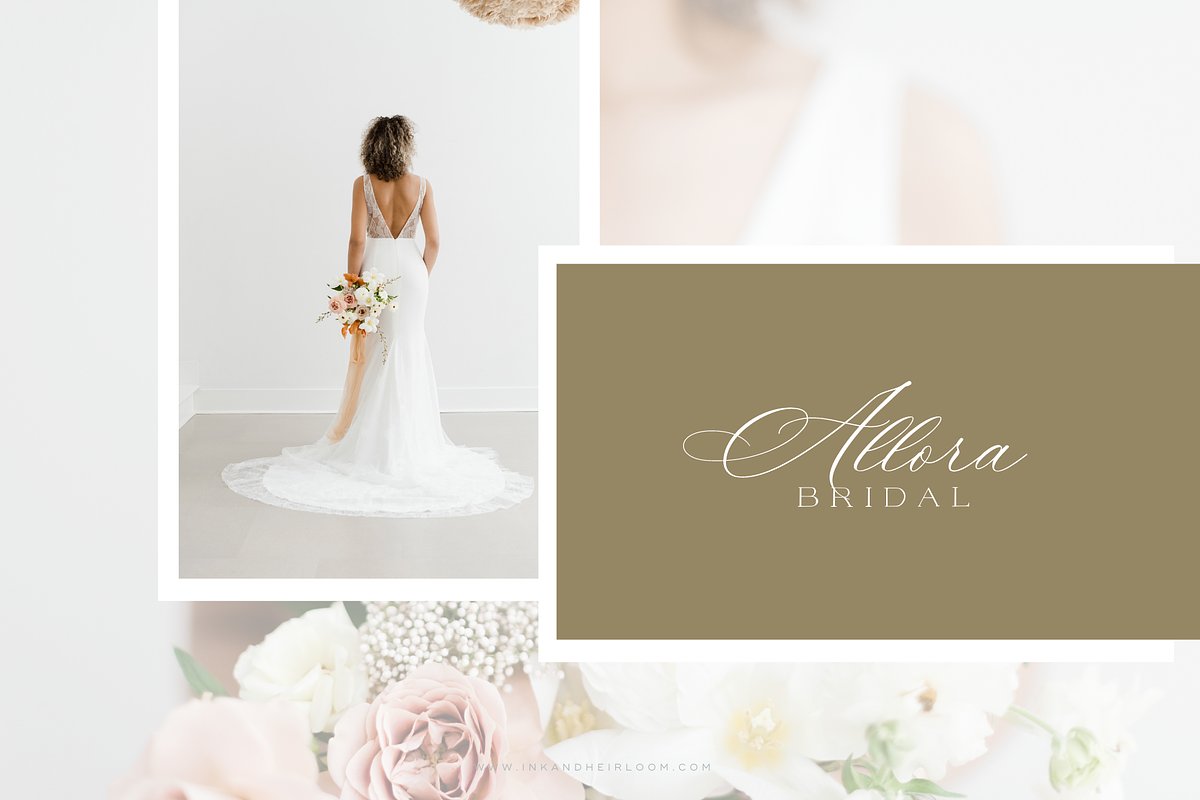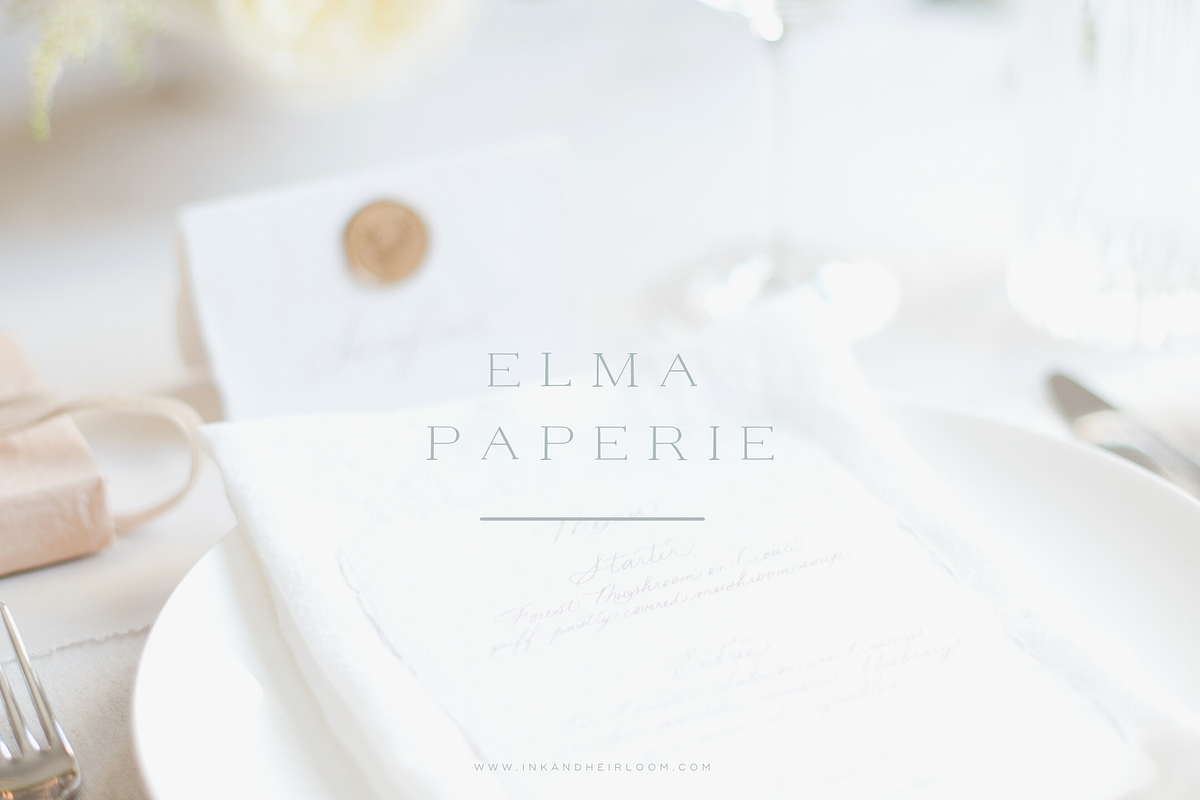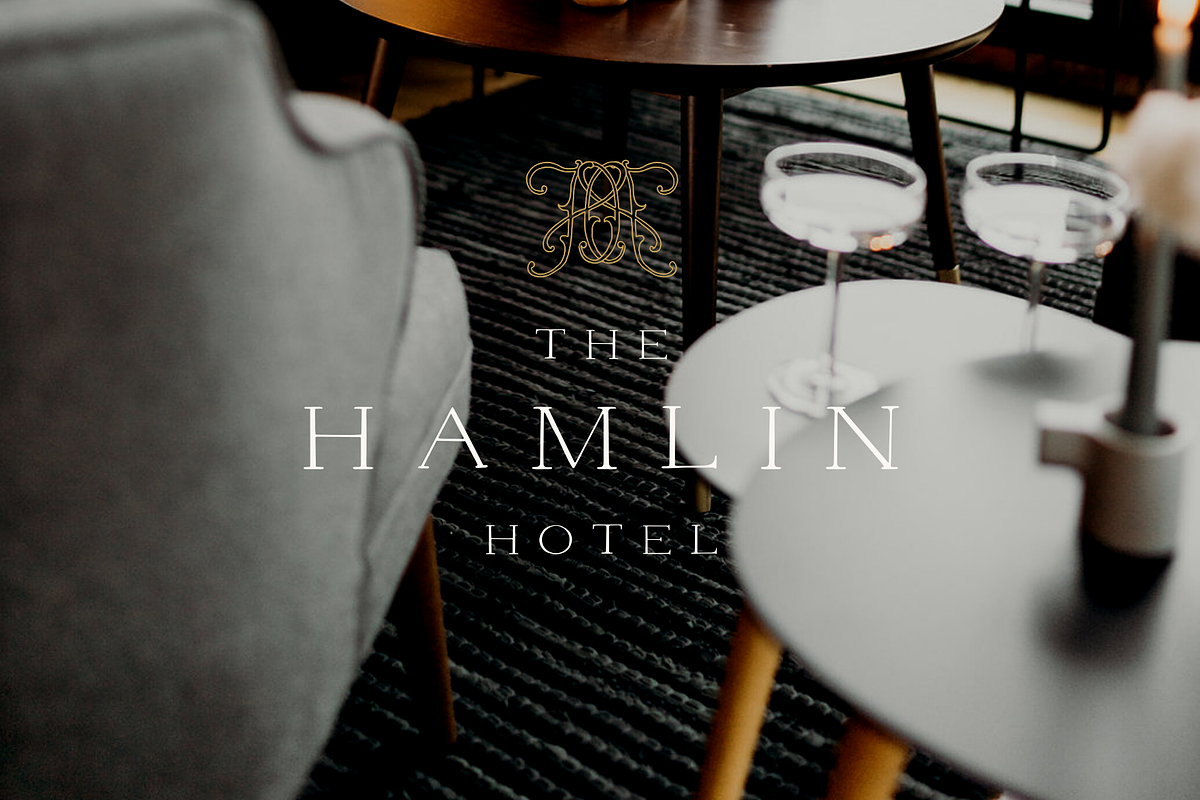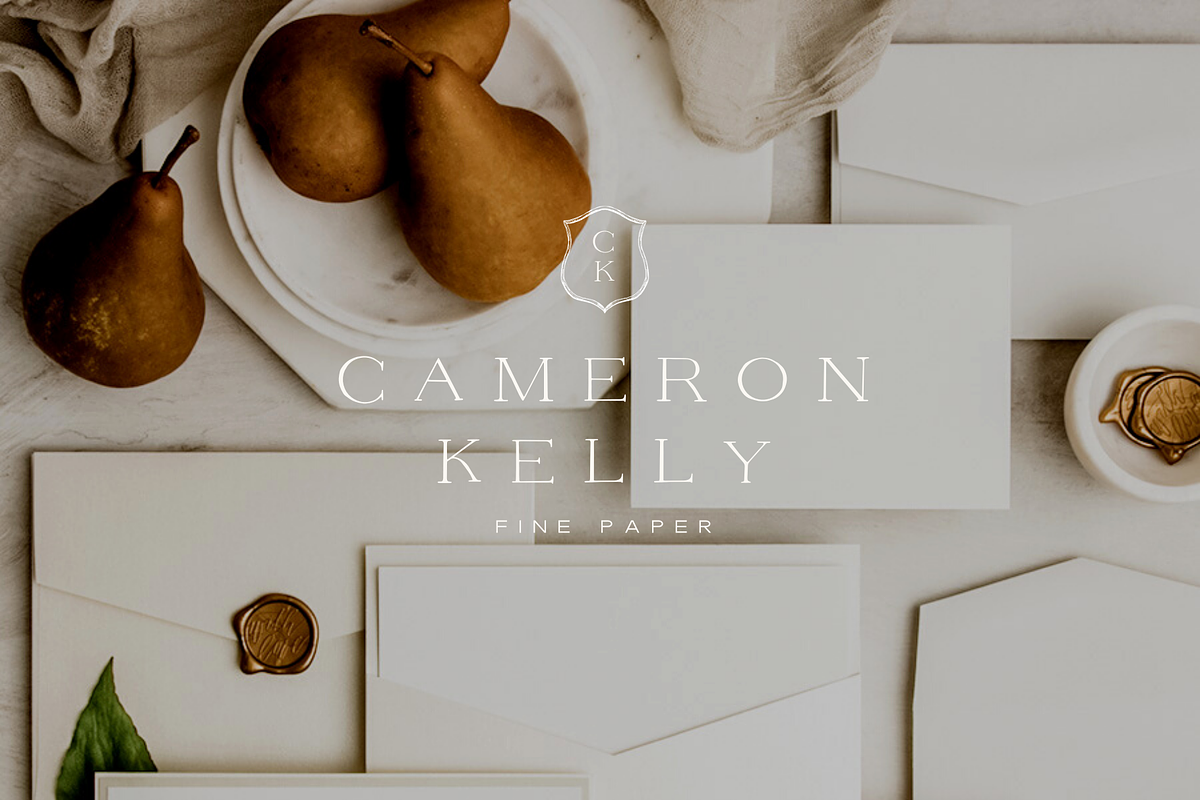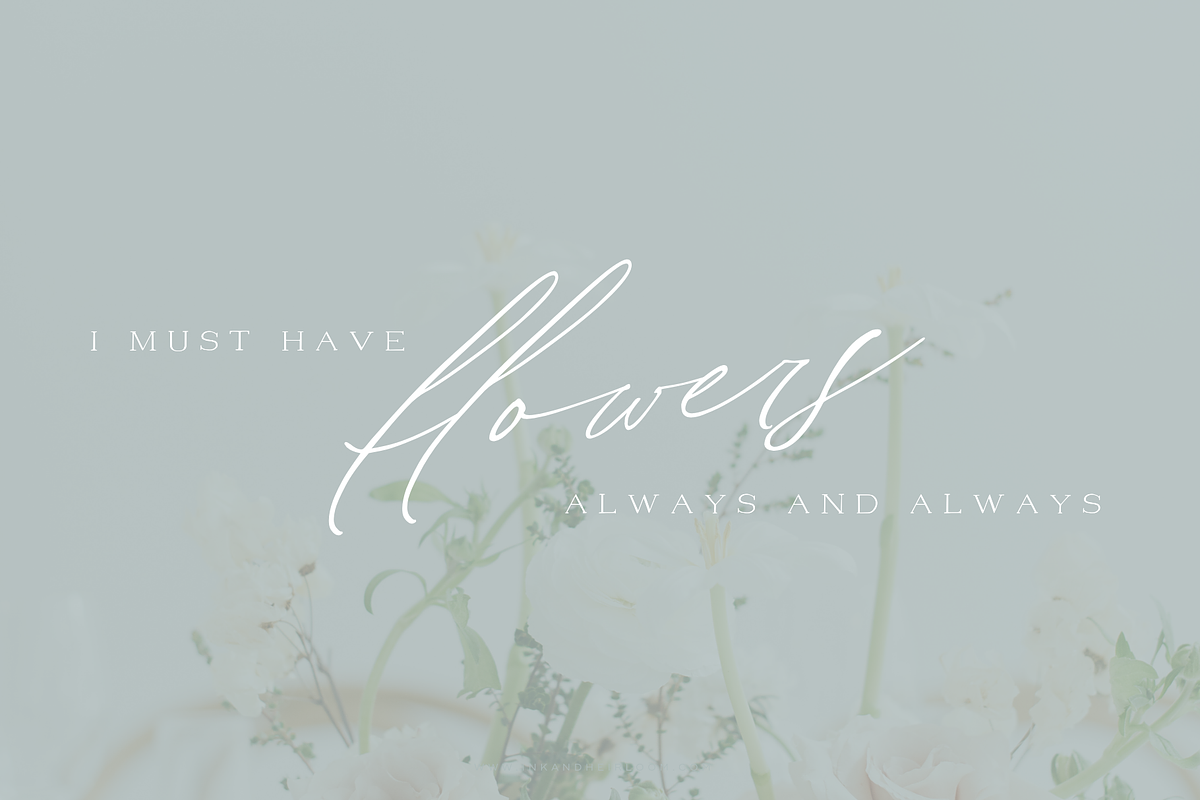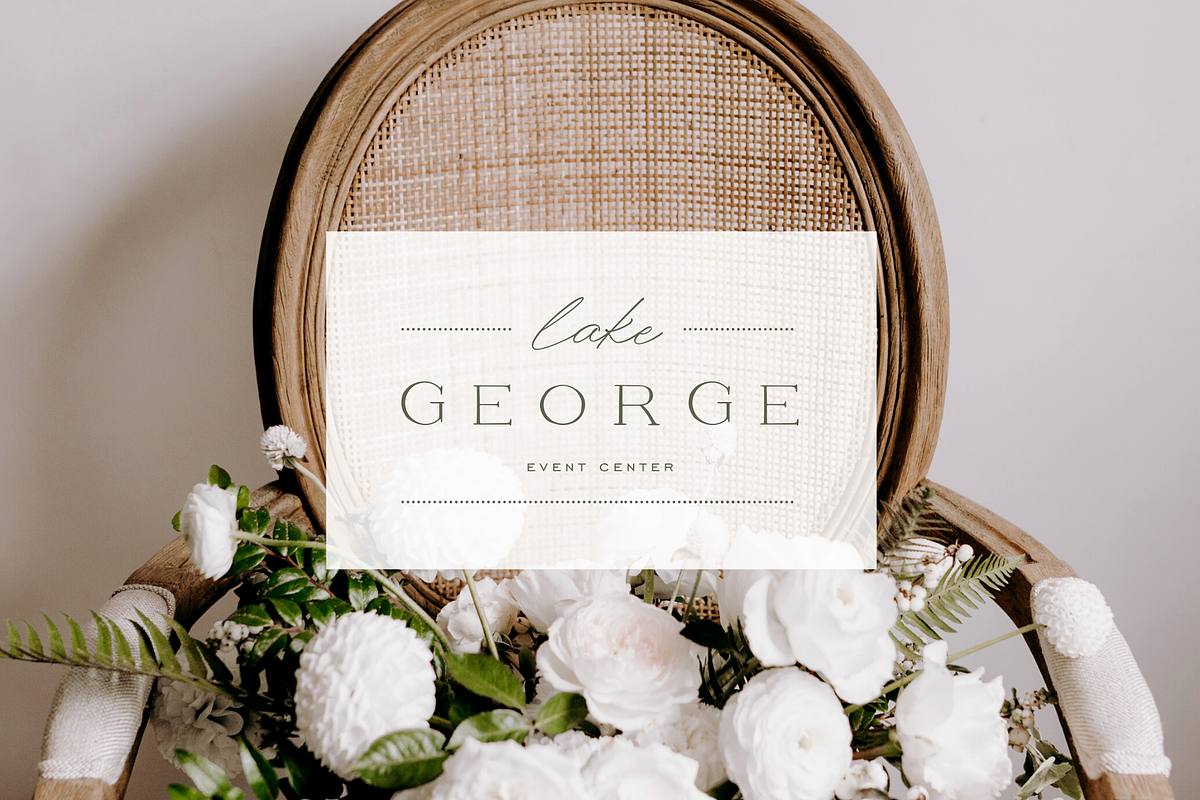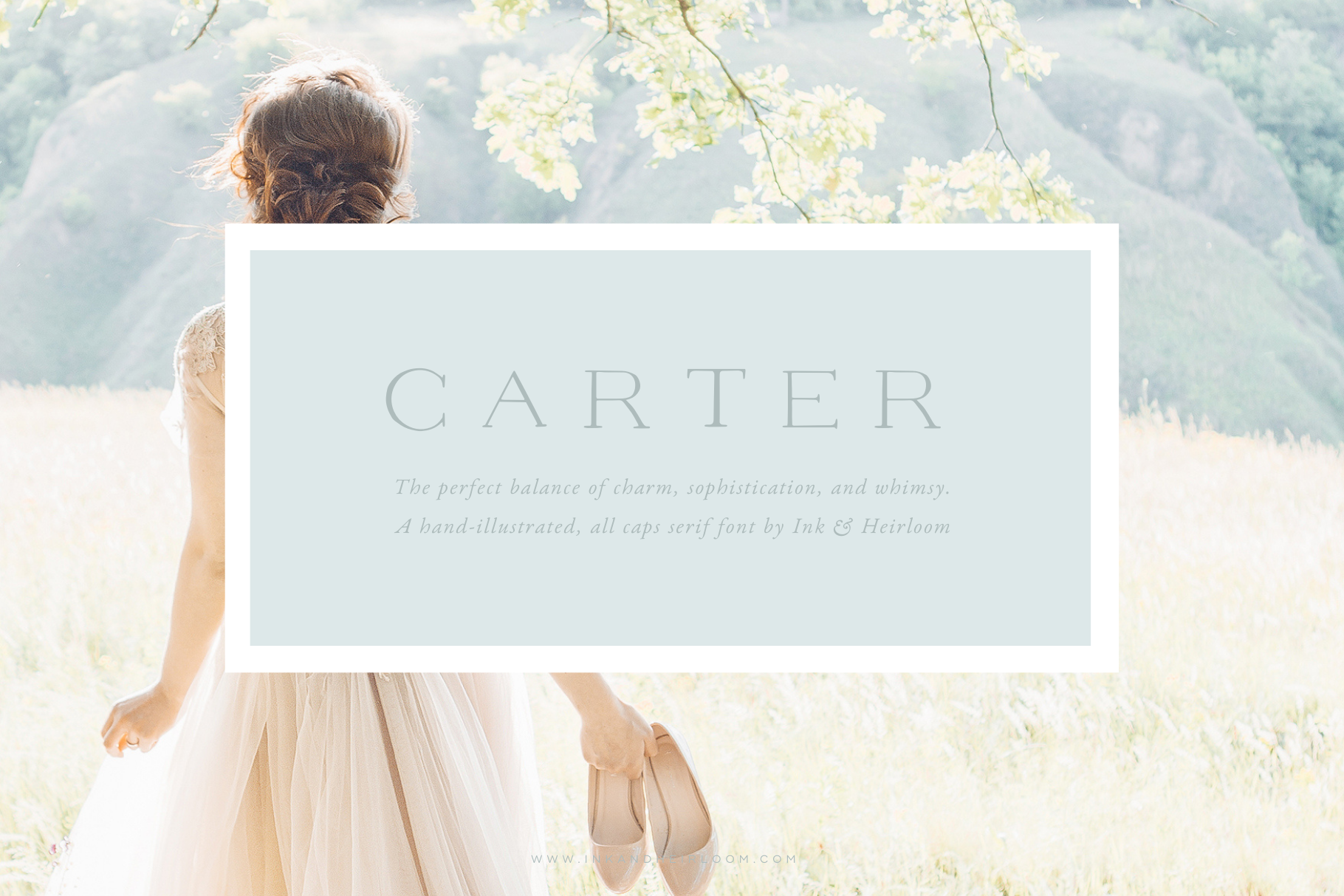
Carter - An All Caps Serif Font
Carter is an all-caps, hand-illustrated serif font created with the purpose of adding a soft sophistication to any design. Utilize the letters individually to create stunning monograms, or use the font as normal and create elegant, vintage-style designs.